ReType
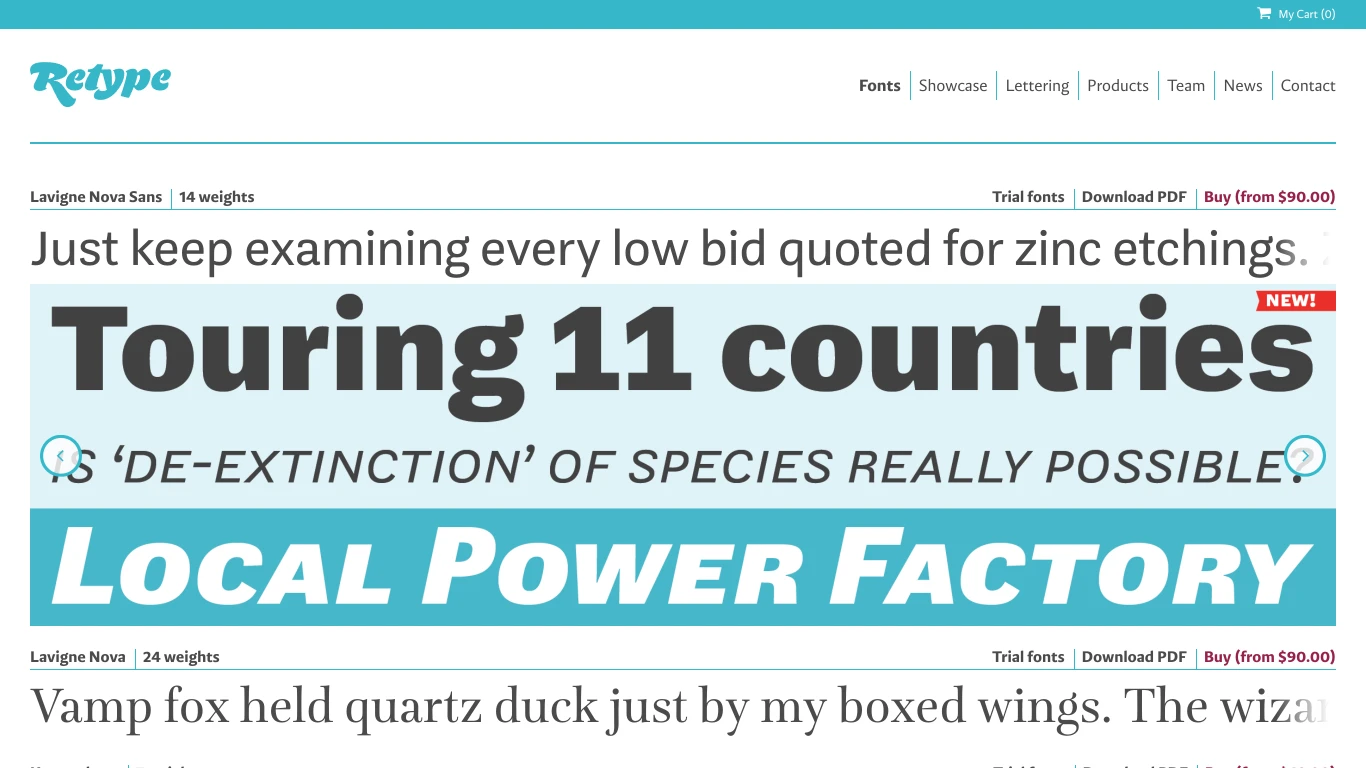
Netherlands
2007
ReType Foundry is an independent type studio based in The Hague, founded in 2007 by Ramiro Espinoza and later joined by Paula Mastrangelo. Passionate about editorial design and Dutch typographic heritage, the studio has released acclaimed retail families like Guyot, Laski Sans, Medusa, Dulcinea, Krul, and Winco. Its fonts—ranging from elegant serif revivals to expressive scripts—are used in publications, branding, and even newspaper redesigns (e.g. Guyot for Handelsblatt). ReType also provides custom font design, lettering, and technical refinement for studios and agencies. What sets it apart is its blend of historical research, humor, and high editorial standards, reflected in meticulously crafted typefaces that honor tradition while feeling fresh and functional.